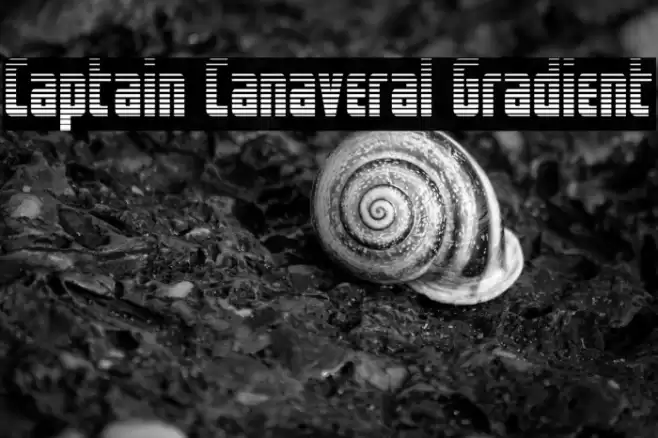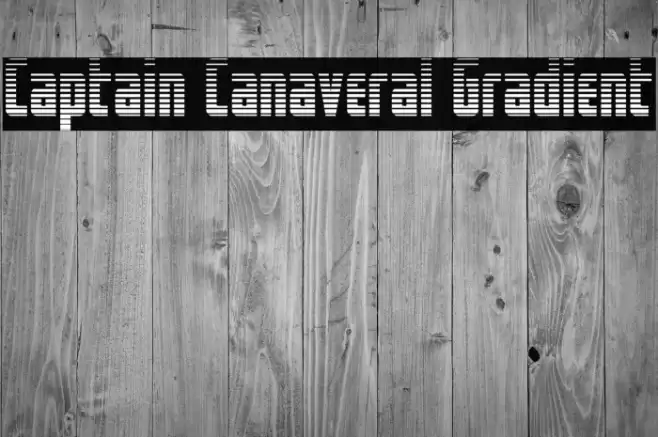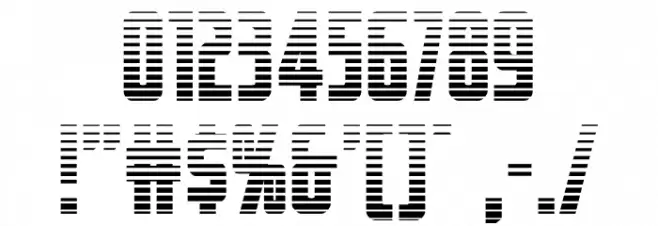
Captain Canaveral Gradient Font
Captain Canaveral Gradient Description
This font features a unique, futuristic design characterized by horizontal lines that create a gradient effect across each character. The uppercase and lowercase letters, as well as numbers and special characters, are constructed with bold, solid strokes interrupted by evenly spaced horizontal gaps. This creates a striking visual rhythm and a sense of movement. The font's geometric structure and consistent line spacing give it a modern, technological feel, making it ideal for projects that require a bold and innovative look.
A bold, futuristic font with a gradient effect created by horizontal lines from Uncategorized fonts.
- Proposed Projects: Ideal for tech-related branding, sci-fi posters, video game titles, and futuristic-themed designs.